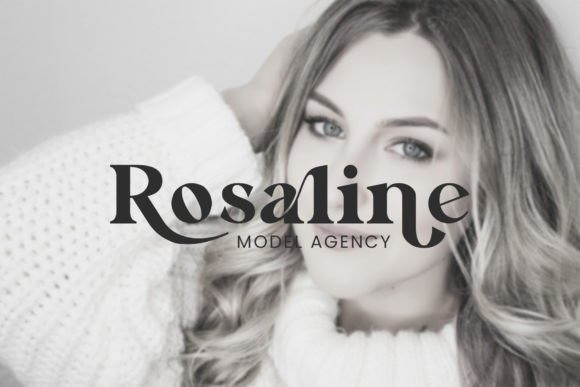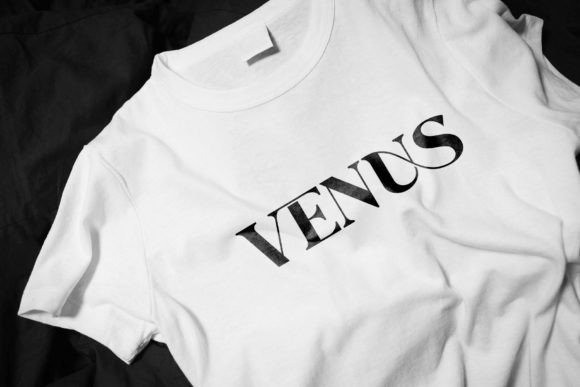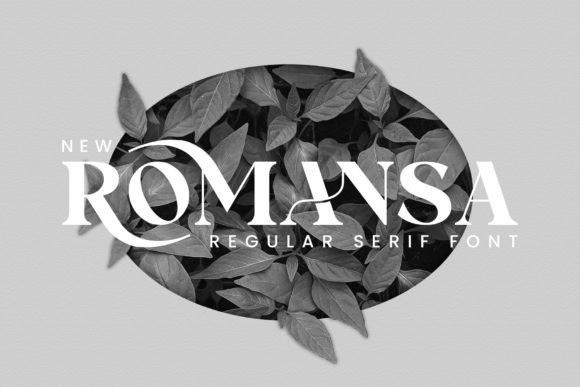
Romansa Font
Romansa Font is a balanced, smooth, elegant, and stylish serif font. It fits perfectly with invitation card designs, company logos, movie titles, movie names, business cards, book titles, brand names, and various other designs. RomansaSerif is a subtle serif font that exudes sophistication and elegance. Its stylish alternations and ligatures make this font the perfect partner for any project.